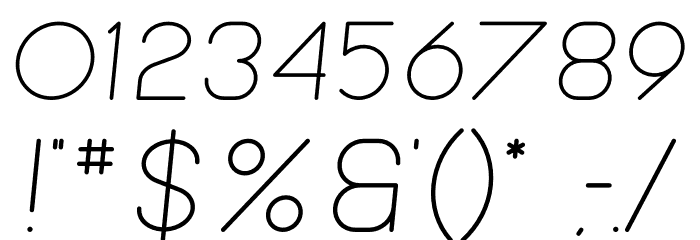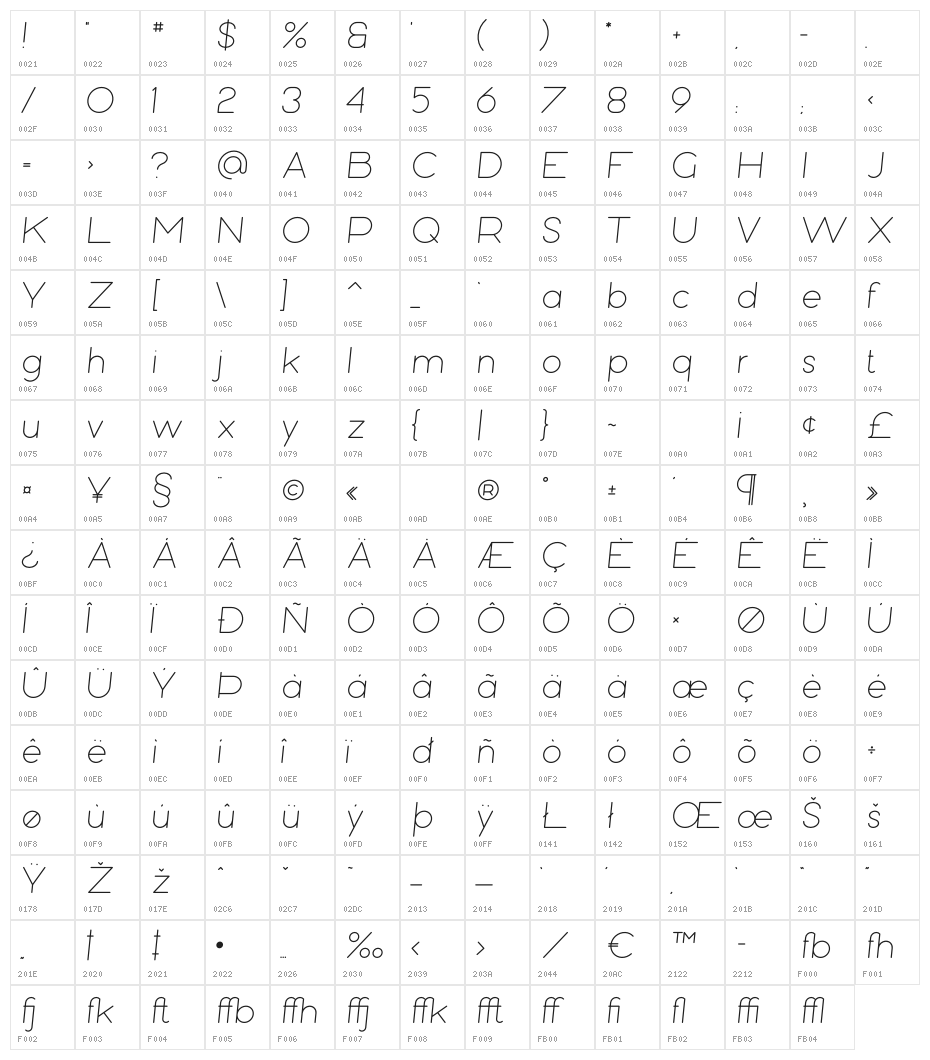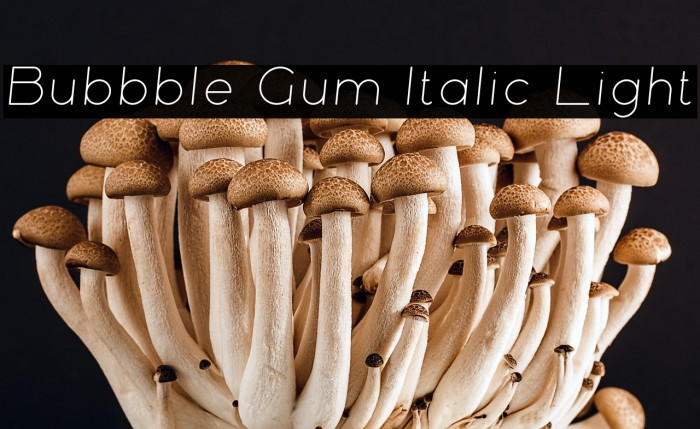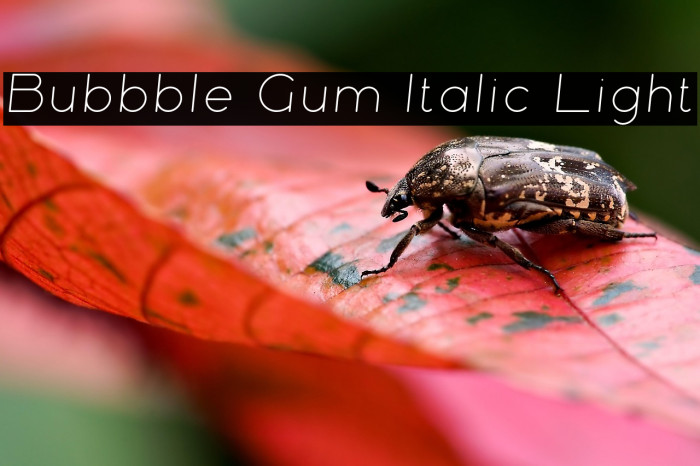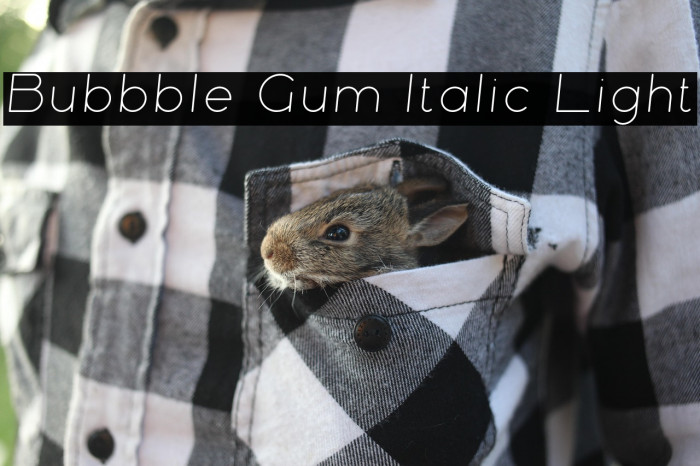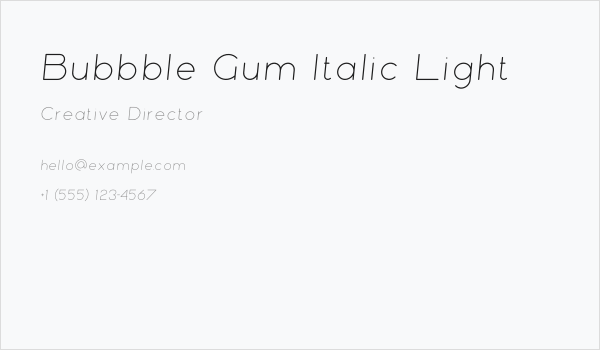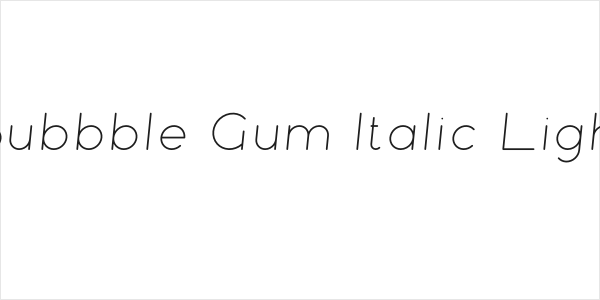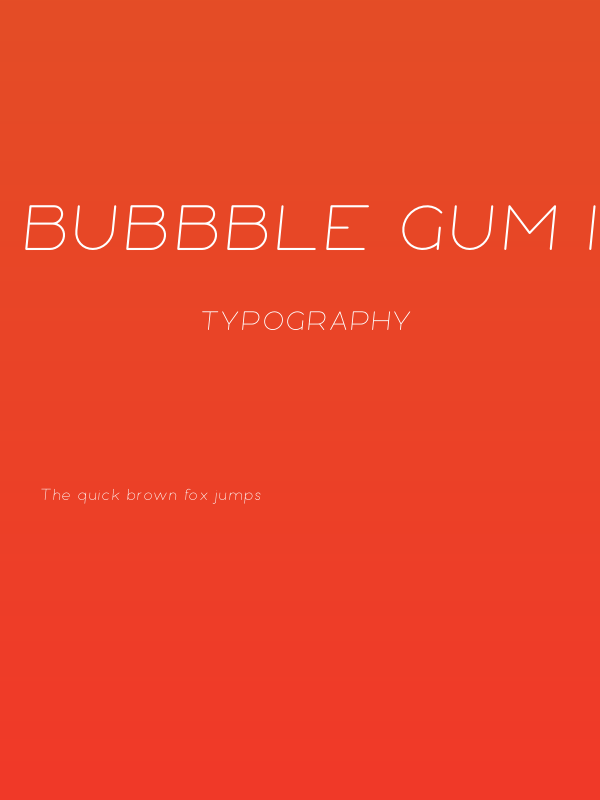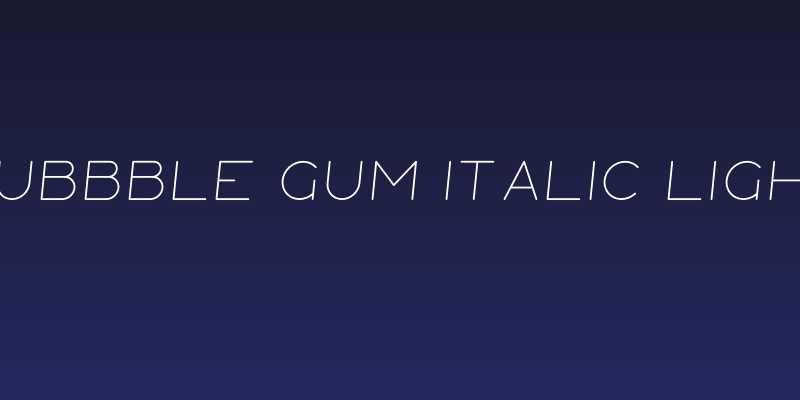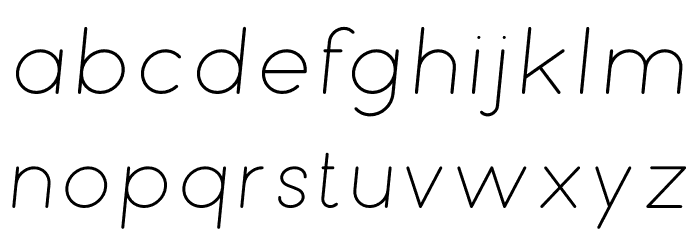
Bubbble Gum Italic Light Font
Bubbble Gum Italic Light Description
This font features a light and airy design with a modern, minimalist aesthetic. The characters are slightly italicized, giving them a subtle slant that adds a sense of motion and elegance. The strokes are thin and consistent, contributing to a clean and sophisticated look. The spacing between characters is normal, ensuring readability while maintaining a sleek appearance. This font's simplicity and elegance make it versatile for various design applications.
| Proposed Projects | Ideal for fashion magazines, modern branding, elegant invitations, and minimalist website designs. |